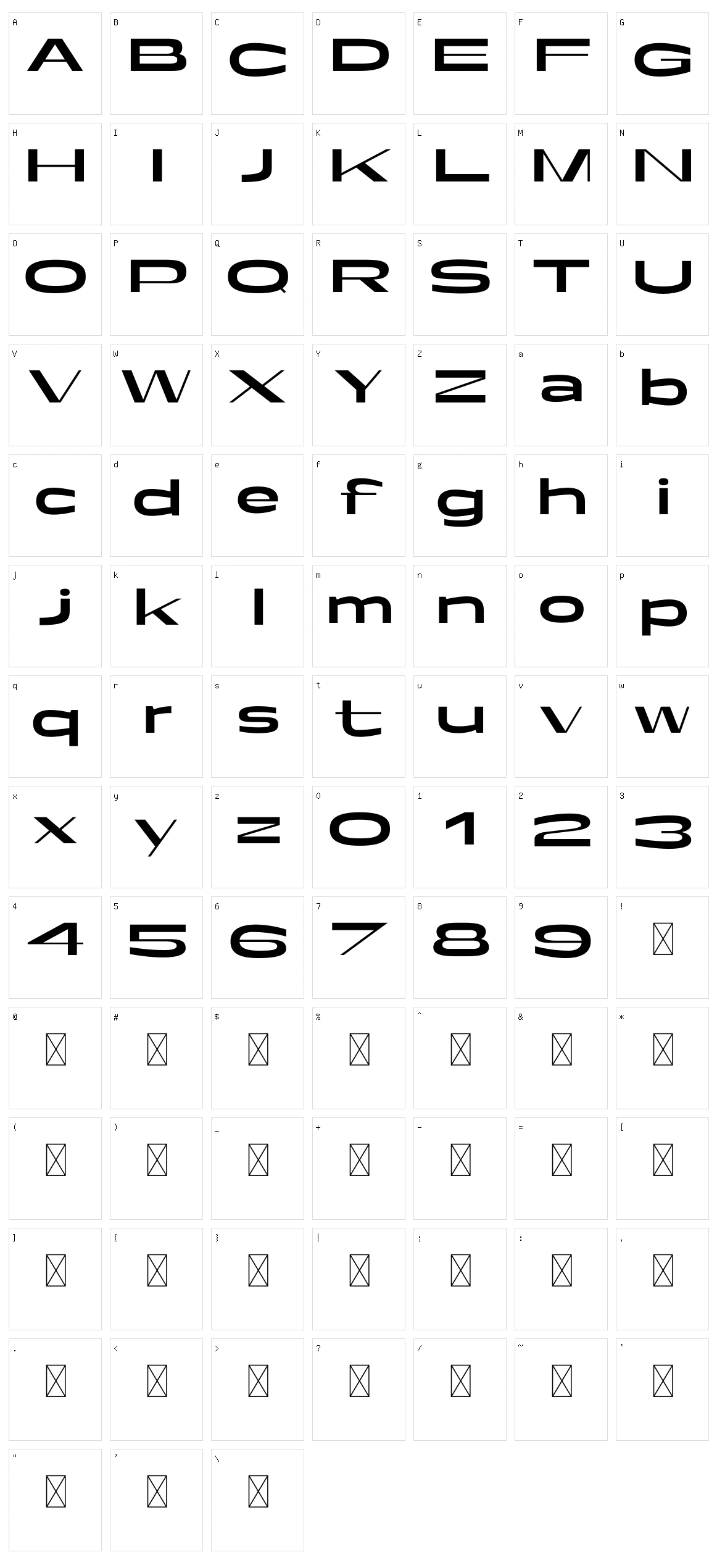
The free font Fathead is carefully designed by Headfonts, showcasing a thoughtful balance of creativity and usability and falls under the Sans serif font style. When you download the ZIP file, it contains only 10.94 KB of font files, making it lightweight and quick to download. Please review the license details below to understand permitted usage and distribution rights. If license information is not available, we recommend using this font for personal projects only or contacting the author directly for commercial usage permissions.